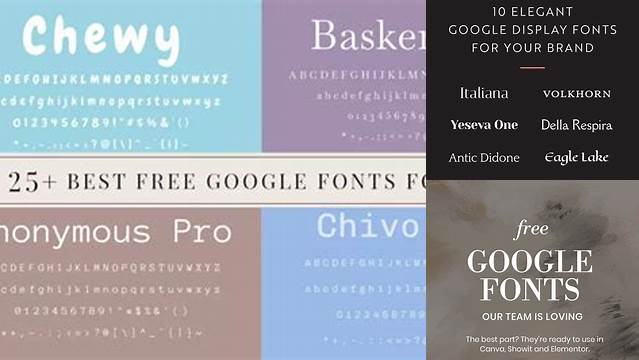
Modern Font Free Google: Find Yours Now!
Hey guys! Are you looking to spice up your design projects with some fresh, modern fonts without breaking the bank? Well, you've come to the right place! In this article, we're diving deep into the world of modern font free Google, exploring the amazing variety of fonts available on Google Fonts, how to use them, and how they can elevate your designs. We’ll cover everything from sans-serif to serif fonts, display fonts to monospaced fonts, ensuring you have a solid understanding of the best options out there. So, grab a cup of coffee, get comfy, and let’s jump into the fascinating realm of free modern Google fonts!
Why Choose Google Fonts?
Secondly, Google Fonts offers a vast library of fonts. We're talking about hundreds of font families, each with multiple styles and weights. This means you have an incredible range of options to choose from, whether you're looking for a sleek and minimalist sans-serif or a sophisticated and elegant serif. With so many choices, you're sure to find the perfect font to match your project's aesthetic and convey your desired message. Plus, Google Fonts is constantly updating its library, so you'll always have access to the latest and greatest typefaces.
Delving Deeper into the Google Fonts Library
The sheer volume of modern font free Google options can feel overwhelming at first, but don't worry! Let's break down some key categories and highlight a few standout fonts within each. Understanding these categories will help you narrow down your choices and find the perfect font for your specific needs. We'll explore sans-serif, serif, display, and monospaced fonts, giving you a comprehensive overview of what Google Fonts has to offer.
Sans-Serif Fonts: The Modern Workhorses
Sans-serif fonts are characterized by their clean, minimalist appearance, lacking the small decorative strokes (serifs) found at the ends of letterforms. This makes them incredibly versatile and perfect for a wide range of applications, from body text to headings. They convey a sense of modernity, clarity, and simplicity, making them a popular choice for websites, logos, and branding materials.
One of the most popular modern font free Google sans-serif options is Roboto. Designed by Christian Robertson, Roboto is a neo-grotesque sans-serif typeface that boasts a dual nature. It has a mechanical skeleton and largely geometric forms, making it feel incredibly modern and efficient. At the same time, the font features open curves and friendly strokes, giving it a warm and approachable feel. This balance makes Roboto an excellent choice for both headlines and body text, offering readability and visual appeal. It comes in a variety of weights and styles, making it adaptable to various design needs. Whether you're designing a clean and corporate website or a friendly and inviting brochure, Roboto has you covered.
Another standout sans-serif font is Open Sans, designed by Steve Matteson. Open Sans is another highly readable and neutral typeface, making it a fantastic choice for body text. Its open forms and straightforward design contribute to its legibility, even at smaller sizes. Open Sans is particularly well-suited for digital applications, such as websites and mobile apps, where readability is paramount. Its clean and unobtrusive aesthetic ensures that the content takes center stage. With its wide range of weights and styles, Open Sans offers flexibility and consistency in your designs, making it a reliable choice for any project.
Then there’s Lato, created by Łukasz Dziedzic. Lato is a sans-serif typeface that offers a semi-rounded letterform, which gives it a warm and friendly appearance. The font's name,